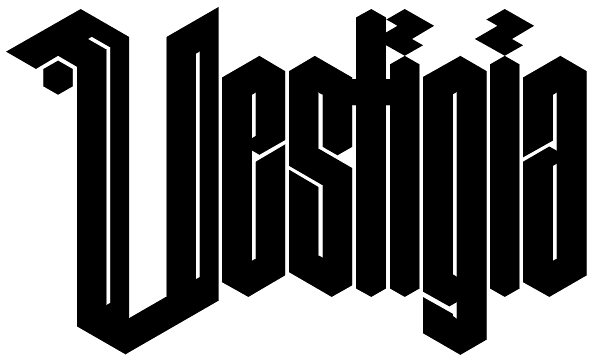
Vestigia
Vestigio m. Ing. & Fr. vestige: a trace, mark or visible sign left by something as an ancient city in a condition or practice vanished or lost. Vestigia is born by lost pieces of other typography, being then, Garbancera's descendant. It evolved to...